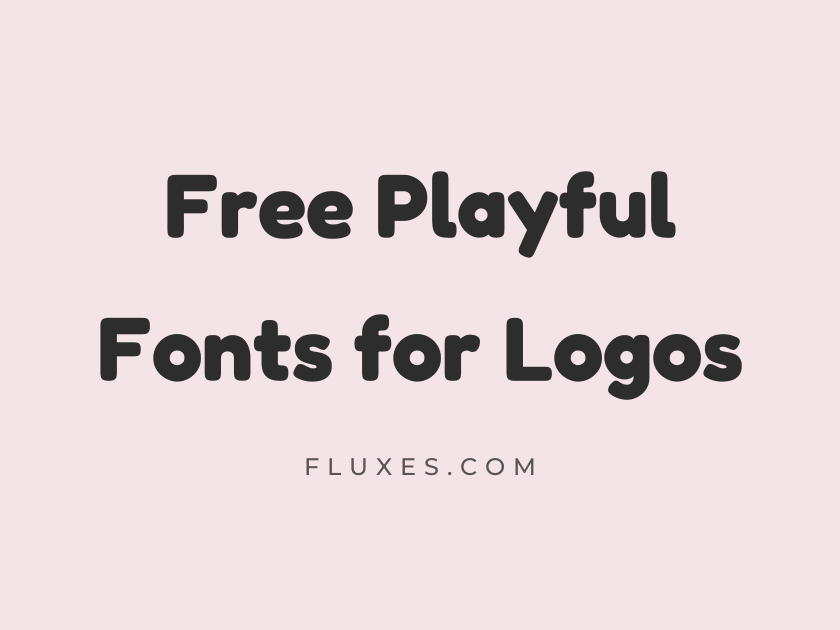
75 Best Free Playful Fonts for Logos
A logo built for a playful brand has to do a lot of heavy lifting in a very small space: it needs personality, warmth, and instant recognizability, often shrunk down to the size of a favicon. That is exactly where free playful fonts on Google Fonts earn their keep, since they let a bakery, toy shop, kids’ app, or party brand telegraph fun before a single word is read. The styles below range from bubbly rounded sans faces to bouncy scripts, chunky slab letters, and hand-lettered marker fonts, all free to download and license for commercial logo work.
Whichever direction fits your brand, the goal is the same: pick a face with enough character to carry a wordmark on its own, then keep the rest of the identity simple so the letters can do the talking.
1. Fredoka
Sunny Days Toy Company, made for smiling
Fredoka is the default reach for a reason. Its rounded terminals and generous curves feel friendly without tipping into cartoonish, which is why it shows up constantly in app icons, kids’ brands, and startup wordmarks.
It comes in a full variable weight range, so a logo can lean light and understated or go bold and chunky without switching families. Pair it with a plain sans body text and it still reads as approachable rather than childish.
2. Baloo 2
Little Sprout Preschool, growing happy minds
Baloo 2 has slightly more weight and warmth in its curves than Fredoka, giving it a huggable, storybook quality that suits daycare, toy, and snack brands especially well at bold weights.
3. Chewy
Bubblegum Arcade, tokens and tickets inside
Chewy looks like it was carved from soft clay, with thick, puffy strokes and a slight bounce to the baseline. It is built for display use only, so save it for a short logotype or headline rather than a paragraph of copy, where its inflated shapes would turn to mush.
It reads instantly as a kids’ or games brand, which makes it a strong pick for arcades, candy shops, and birthday party services.
4. Bubblegum Sans
Sticky Sweet Bakery, fresh frosted fun
Bubblegum Sans
Rounded and a little wobbly, Bubblegum Sans feels handmade in a way that suits crafty small-batch brands, farmers market stalls, and children’s product packaging.
5. Sniglet
Puddle Jump Rain Boots, splash with style
Sniglet’s letters look inflated, almost balloon-like, with very low contrast and soft corners throughout. It works best set large and short, which is exactly the constraint most logos already need.
6. Bungee
Neon Alley Skate Shop, open late
Bungee pulls its energy from urban signage and street typography rather than storybooks, giving it a bolder, more graphic kind of playful. It suits skate brands, food trucks, and festival branding that wants fun with an edge rather than sweetness.
7. Bungee Shade
Retro Arcade Nights, insert coin to play
This is the layered, dimensional cousin of Bungee, built with a built-in drop shadow that gives any short logotype instant depth and a retro sign-painter feel. Use it sparingly and large, since the shadow detail disappears at small sizes.
8. Luckiest Guy
Fizzy Pop Soda Co, shake before opening
Thick, comic-book chunky, and unapologetically loud, Luckiest Guy is a favorite for cereal boxes, soda cans, and cartoon mascots. It has almost no subtlety, which is precisely the point when a brand wants to feel loud and fun rather than refined.
It pairs nicely against a clean grotesque sans in supporting text, letting the logo carry all the personality while the rest of the layout calms down.
9. Titan One
Champion Kids Sports League, play your best
Titan One brings a rounded, inflated boldness closer to a sports mascot logo than a storybook, making it a solid choice for youth sports leagues, energy drinks, and gaming brands that want punch over cuteness.
10. Boogaloo
Funky Town Records, spin the good stuff
There is a retro, hand-painted looseness to Boogaloo’s curves that recalls old dance-hall posters and vintage soda branding. It suits music venues, retro diners, and any brand chasing a nostalgic, good-humored feel.
11. Lilita One
Sunshine Ice Pops, cool treats all summer
Lilita One
Lilita One rounds off its slab-like structure just enough to feel friendly rather than heavy, which makes it a dependable middle ground between bold impact and approachable warmth. It has become a go-to for ice cream shops, kids’ clothing lines, and app logos alike.
12. Bevan
Old Barnyard Farm Stand, honest and fresh
Bevan’s slab serifs give it a sturdier, more vintage-poster feel than most rounded playful fonts, so it fits brands that want a friendly but slightly rustic character, like farm stands, breweries, or general stores.
13. Righteous
Cloud Nine Bubble Tea, sip something happy
Righteous has a groovy, almost surf-shop quality thanks to its rounded corners and slightly retro proportions. It works well for beverage brands, beach shops, and casual lifestyle logos that want fun without looking juvenile.
Color and spacing do a lot of work too. Loosening letter spacing on a bold slab or rounded face often makes a playful logo feel more confident rather than cramped.